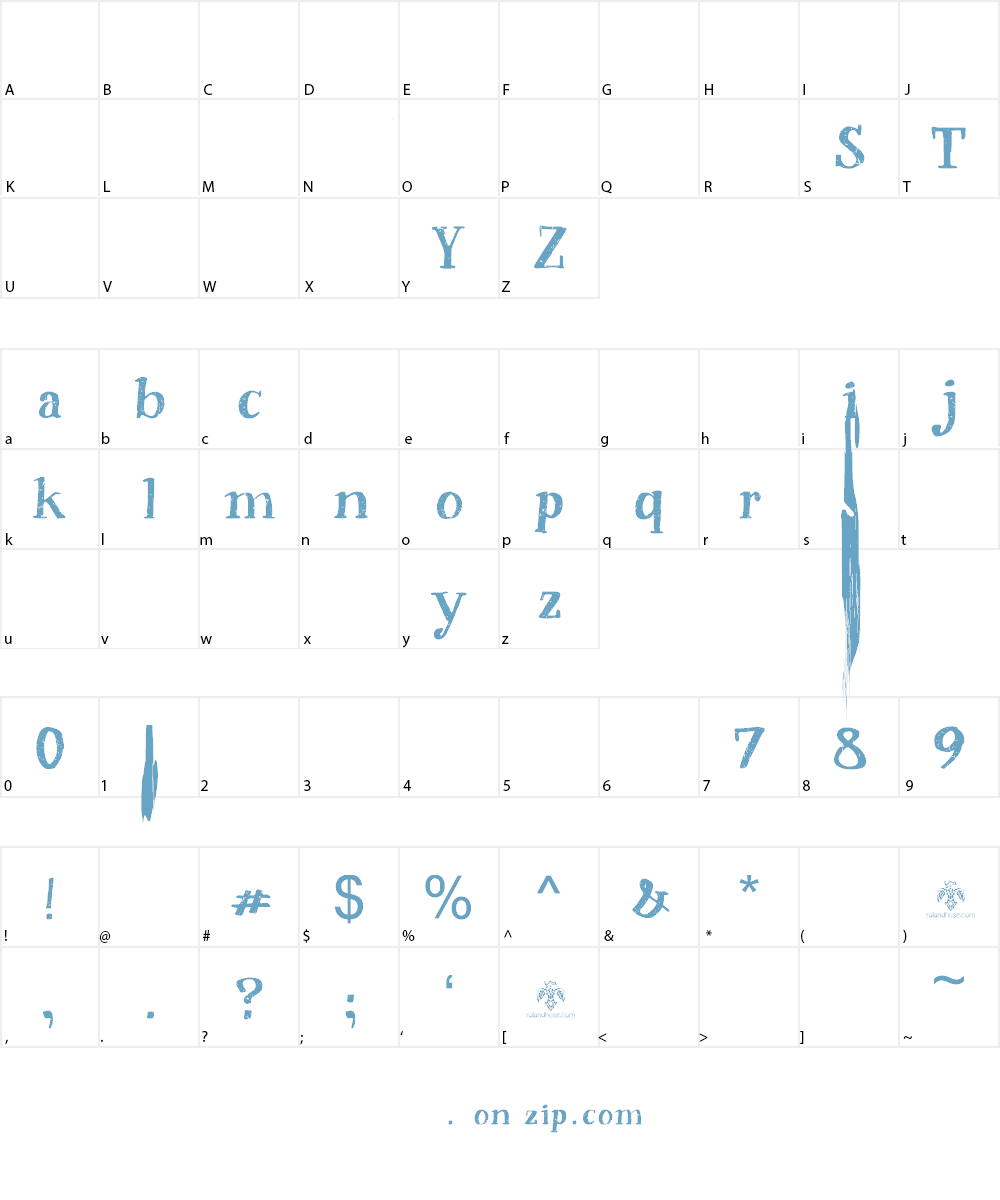
SORSOD BORSOD DEMO is a demo version of a hand drawn serif font with a marker.
It's a saying here means "your destiny is Borsod county" This is where I live. It's in Hungary.